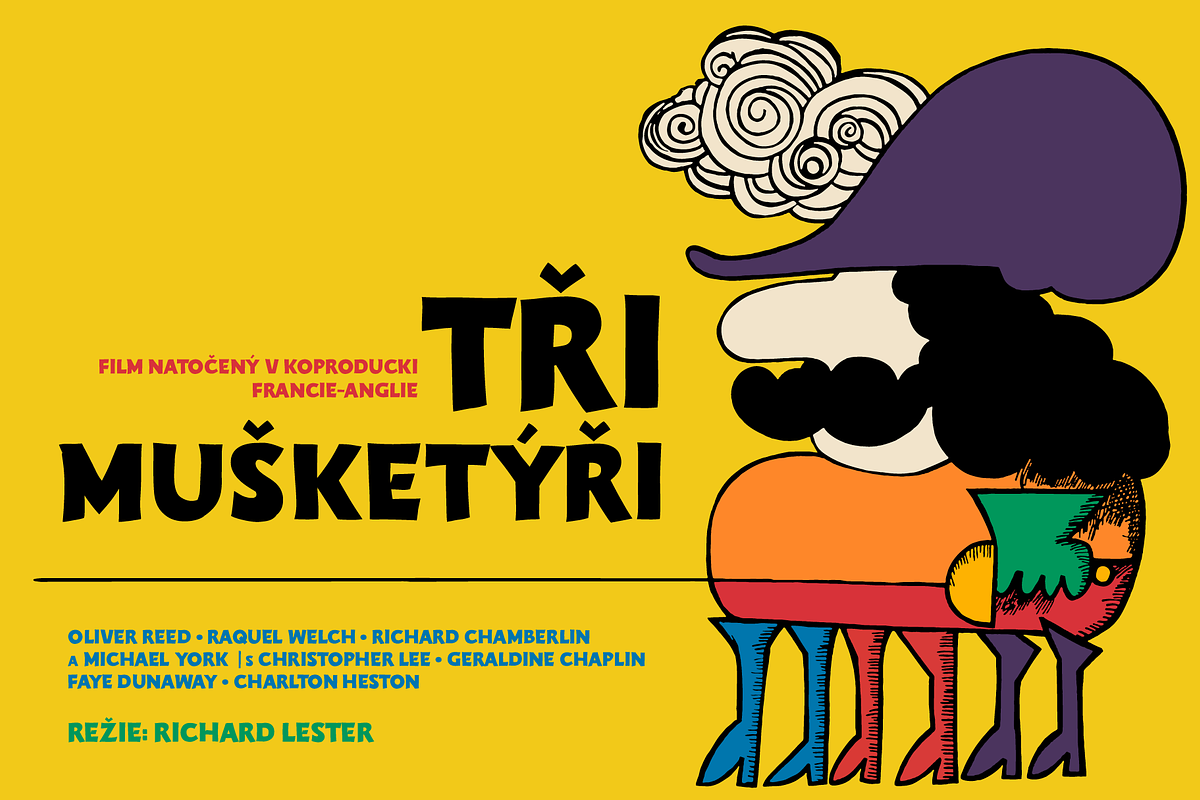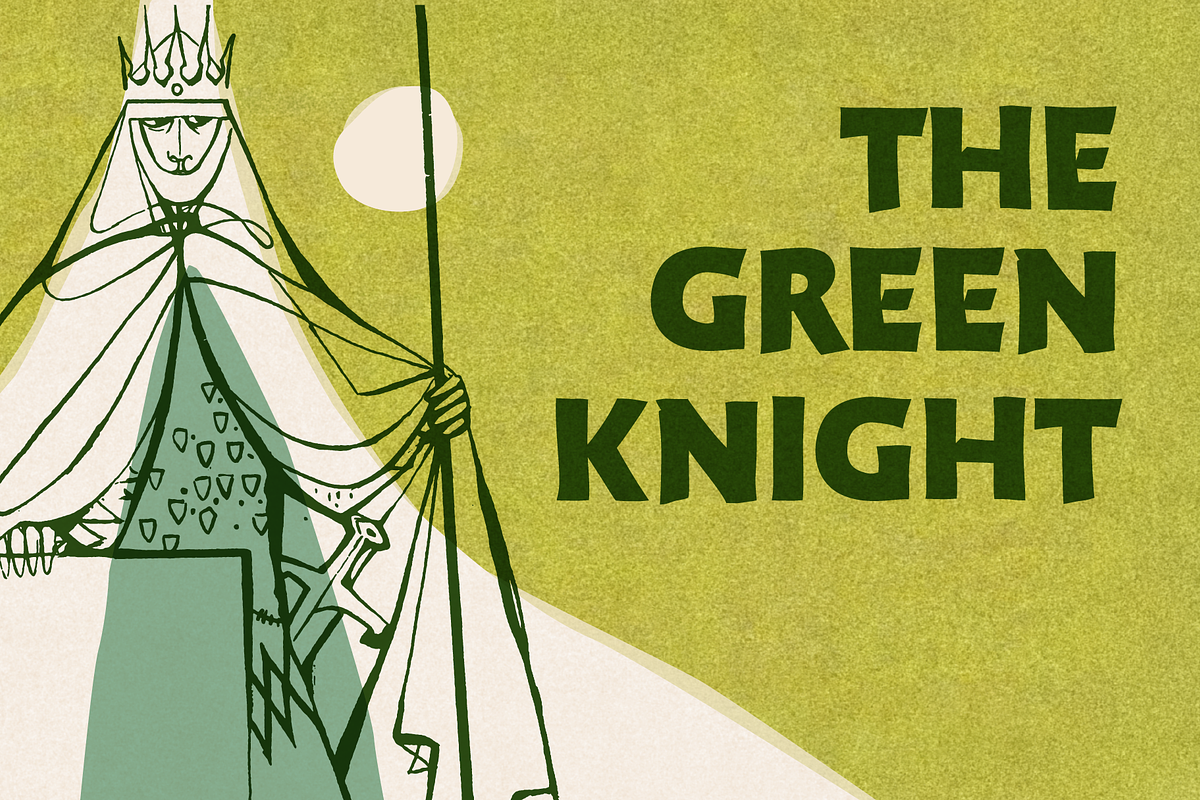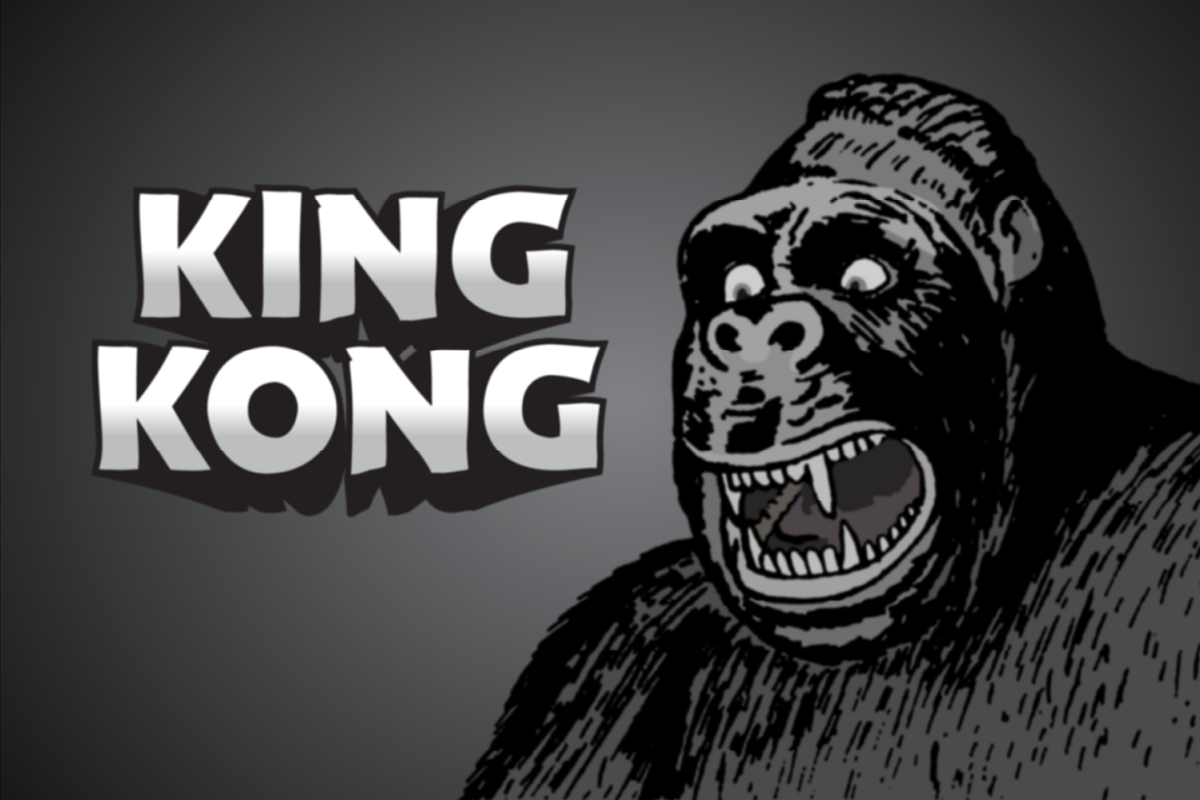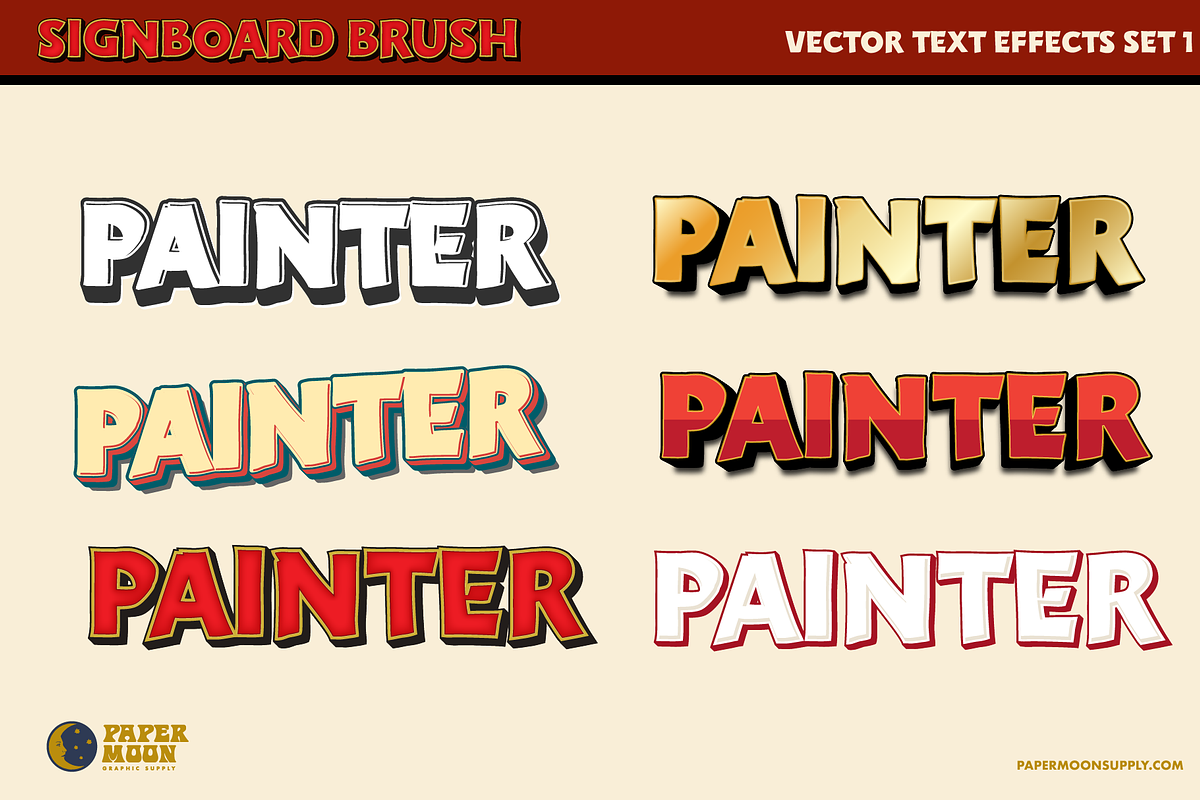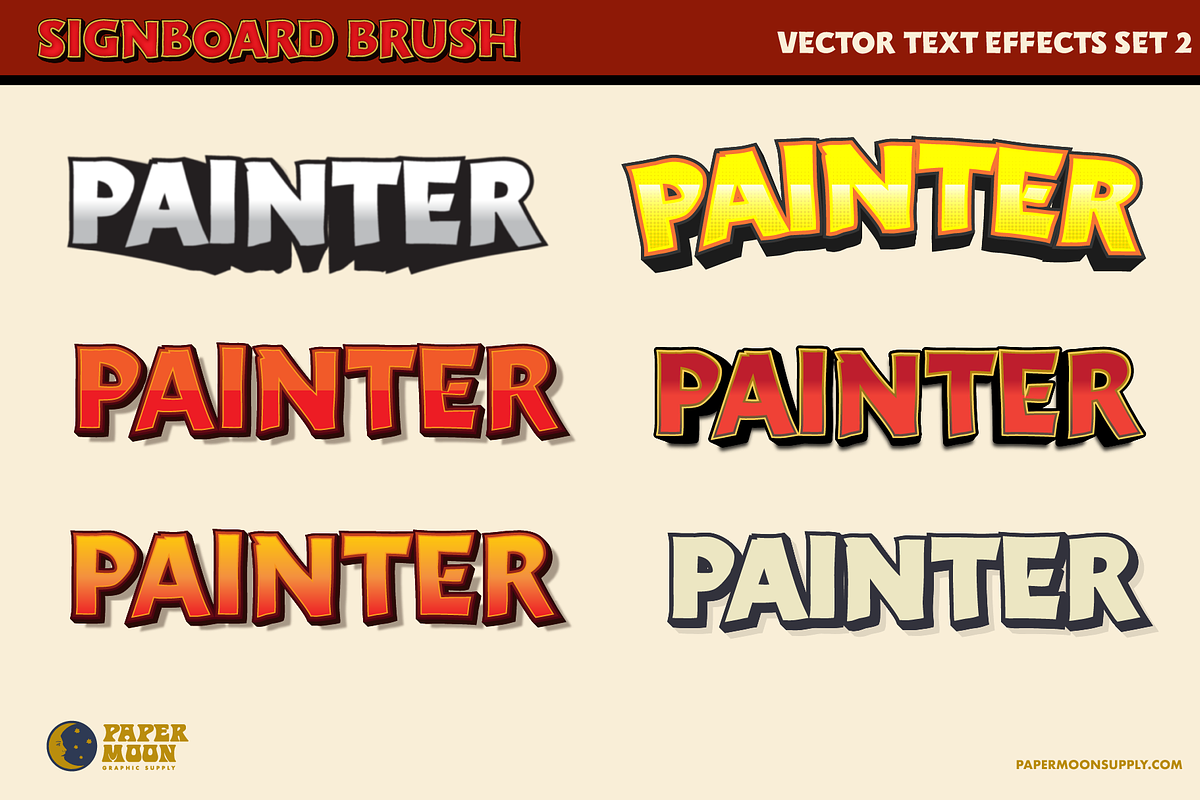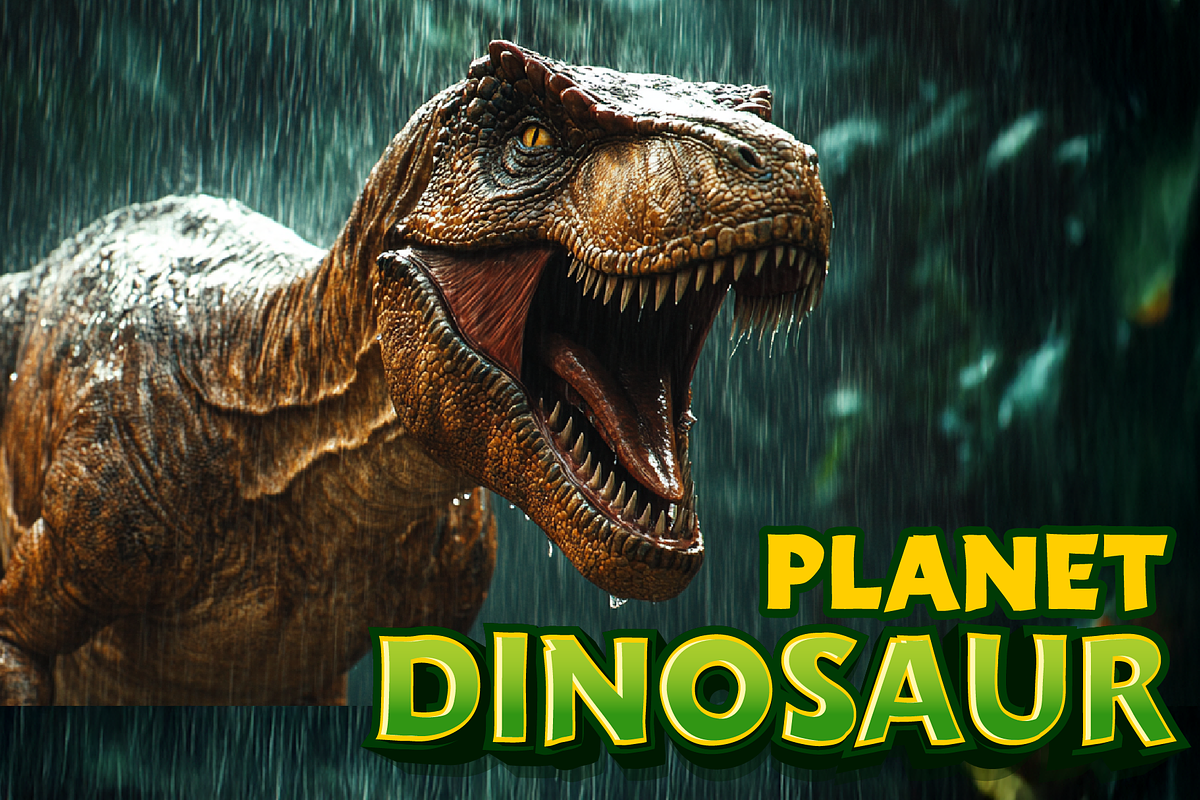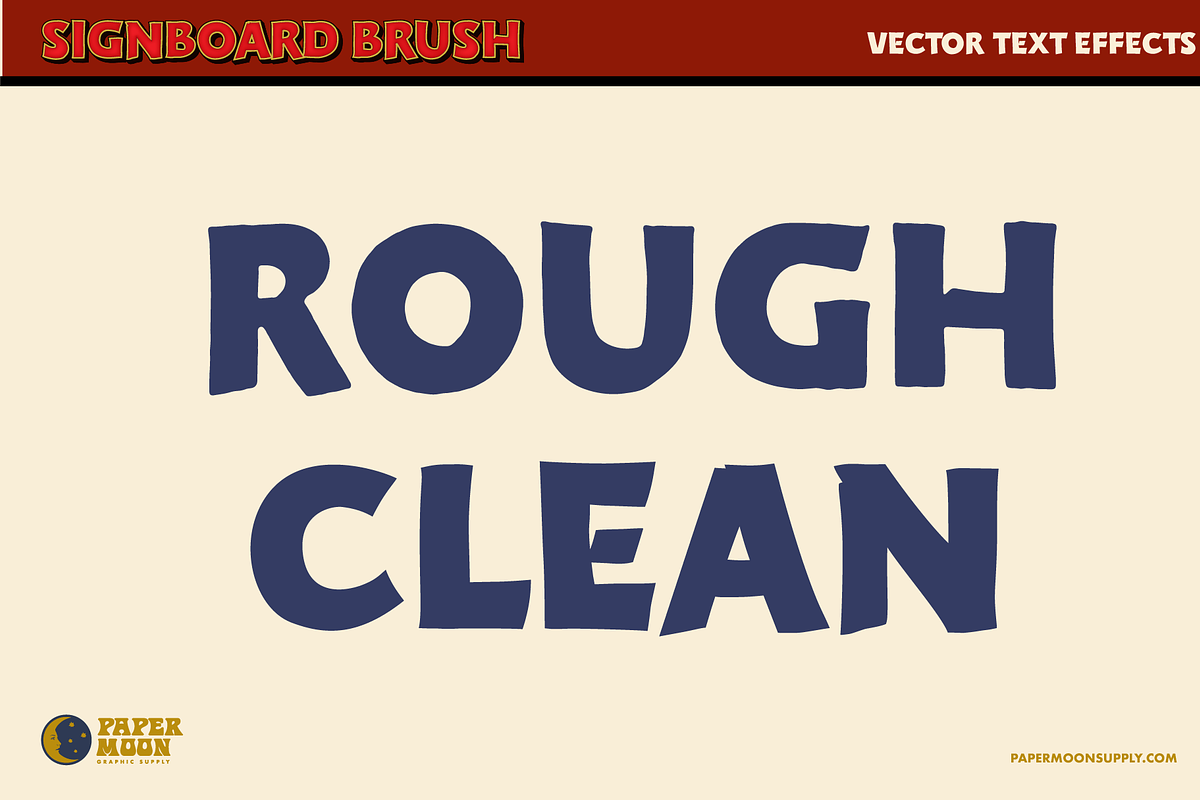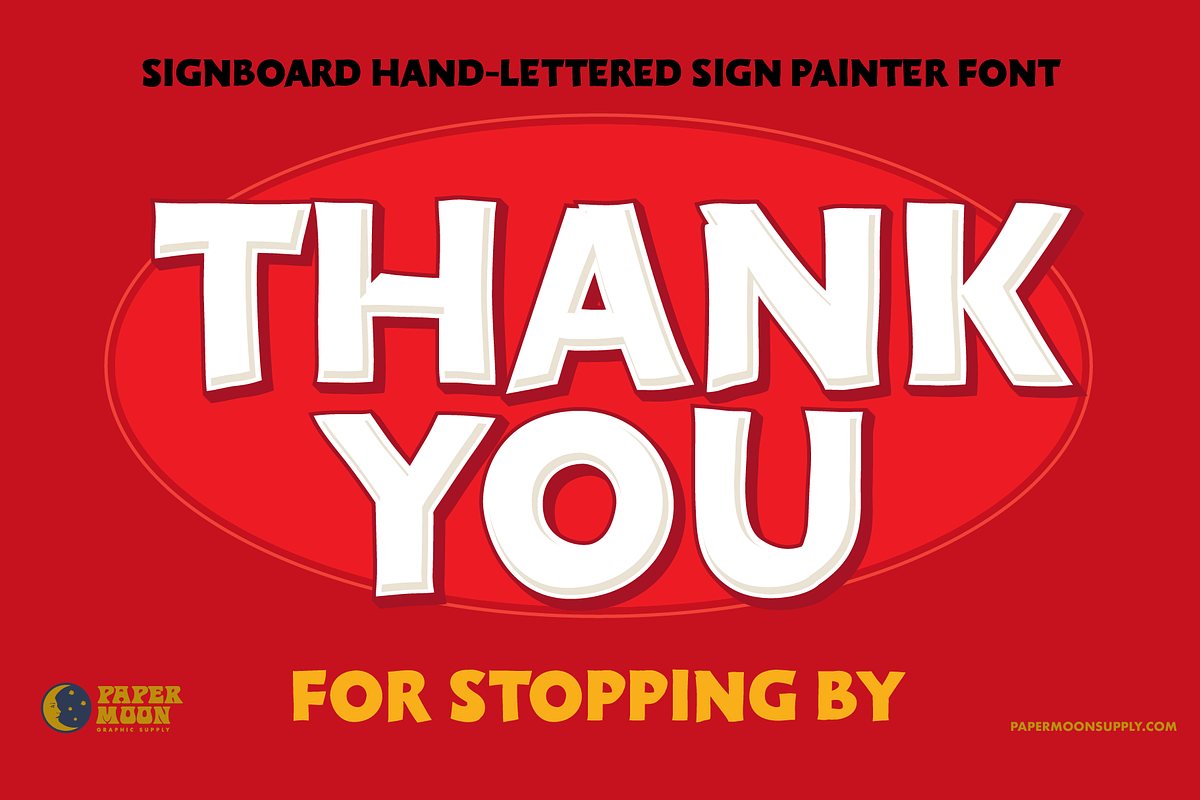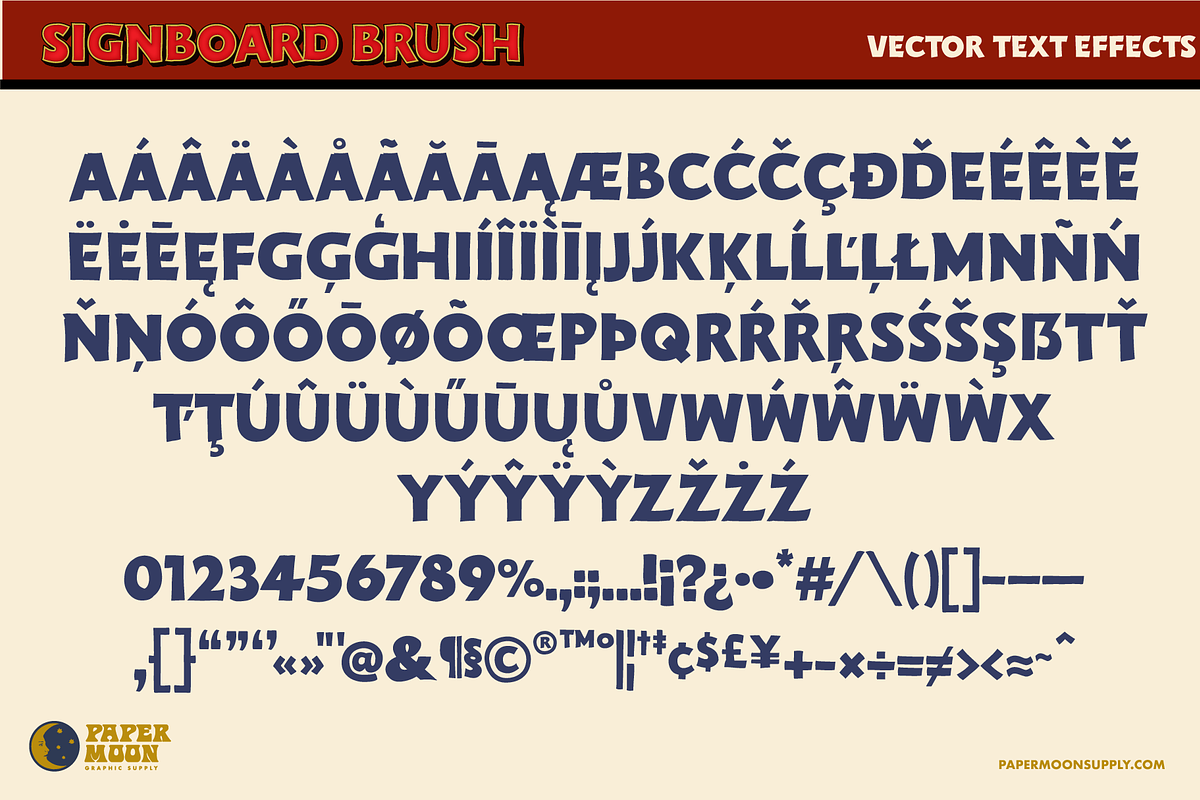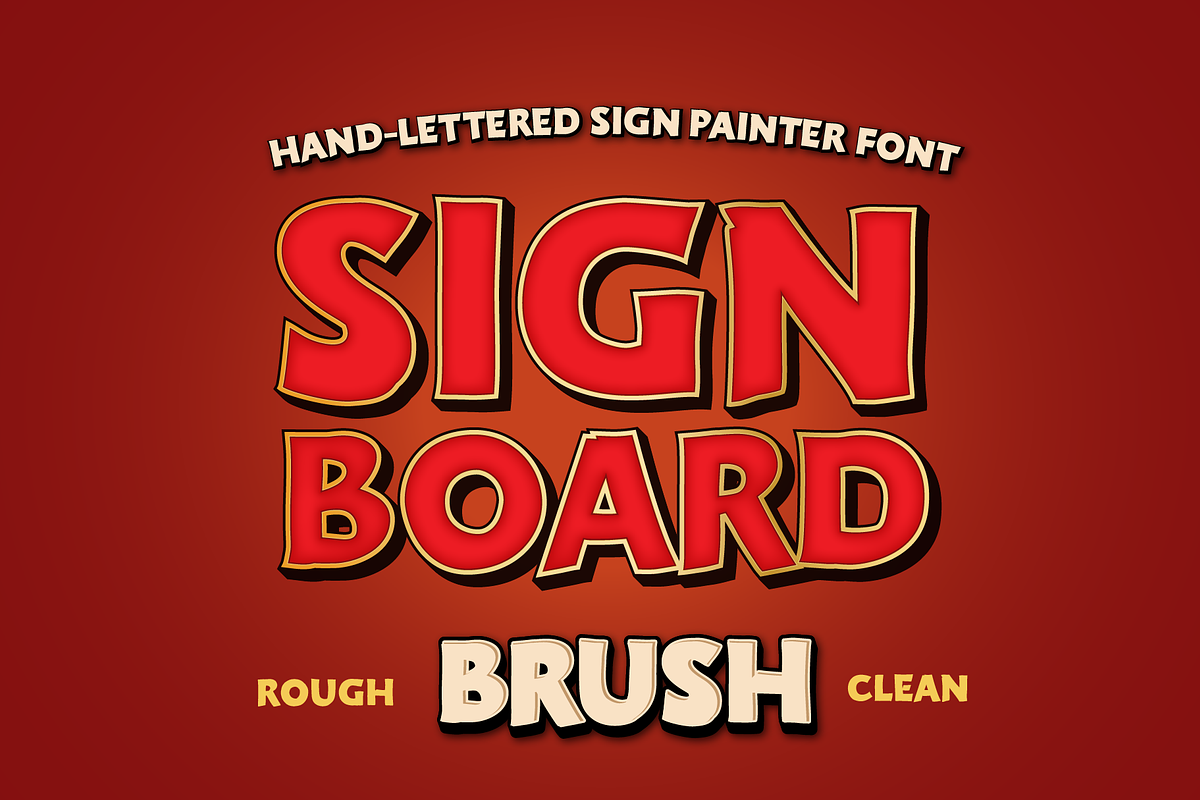
PM-Signboard Brush
PM Signboard Brush
A new, bold sign painter brush font inspired by the hand-painted vintage lettering found on posters, signs, banners, and movie titles.
- Clean and Rough styles
- Complete alphabet, number, and punctuation sets
- Twelve editable vintage-style vector text effects (Compatible with any font)
PM Signboard was created by award-winning illustrator and designer Scott Banks.